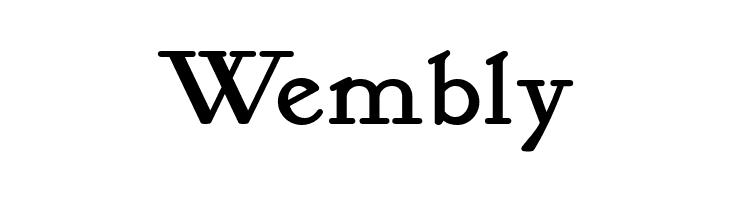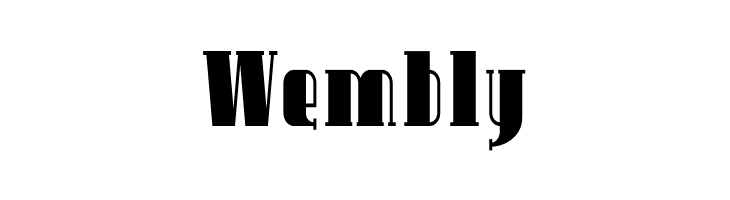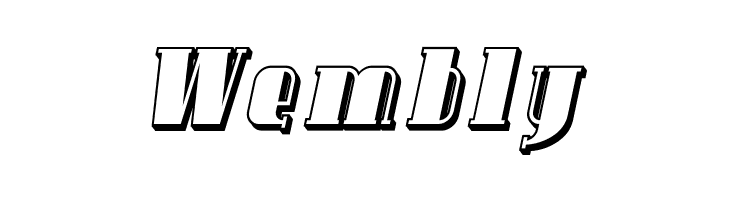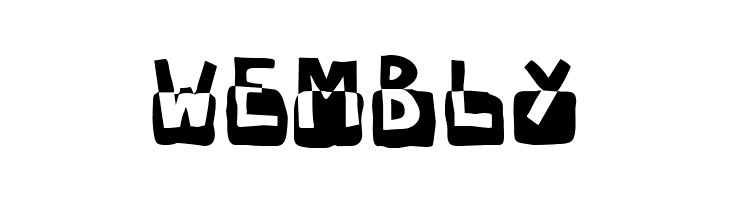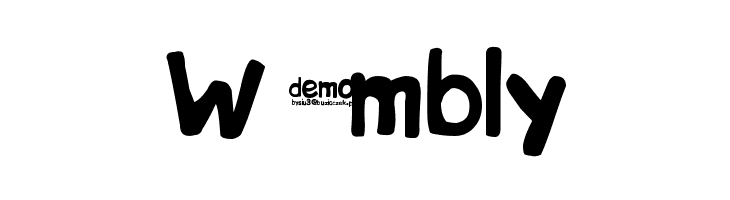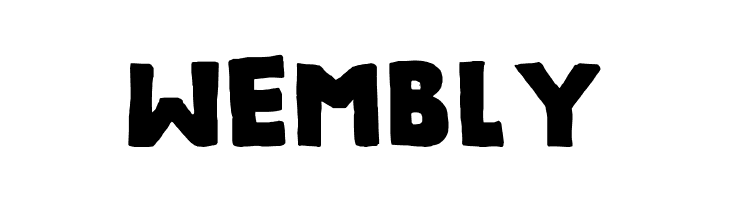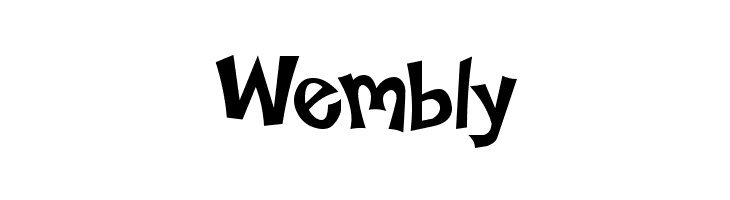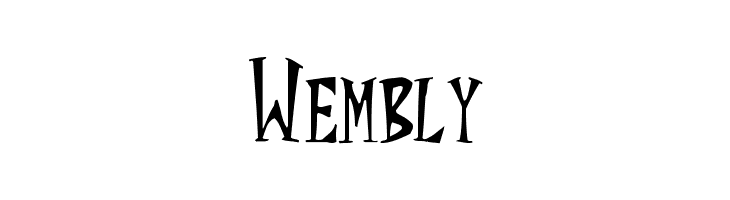
A bold, geometric font with Art Deco influences and strong architectural elements.
A vintage serif font with bold, sharp serifs and elegant curves.
A bold, playful, and hand-drawn style font with a whimsical touch.
A bold, condensed font with high contrast and sharp serifs, perfect for impactful headlines.
A bold, shaded italic font with a three-dimensional effect, perfect for decorative use.
A bold, three-dimensional font with a strong, decorative style.
A bold, decorative font with characters partially submerged in black shapes, creating a dynamic and modern look.
A pixelated script font with a retro, digital handwriting style.
A bold, pixelated font with a retro video game aesthetic.
A playful, hand-drawn font with irregular, dynamic characters.
A playful, bold font with a cartoonish style and 3D shadow effect.
A playful, hand-drawn font with a casual and informal style.
A playful and whimsical font with quirky letterforms and exaggerated serifs.
A bold, block-like font with a vintage athletic feel.
A bold, playful font with a shadow effect and rounded, italicized letters.
A bold, handcrafted font with artistic and dynamic characteristics.
A bold, playful handwritten font with rounded, irregular characters.
A bold, embossed font with a dynamic, three-dimensional effect.
A bold, playful font with a three-dimensional shadow effect.
A bold, wide, and playful font with rounded, cartoonish characters.
A bold, playful font with a comic book style and strong visual impact.
A bold, playful font with a hand-drawn, artistic style.